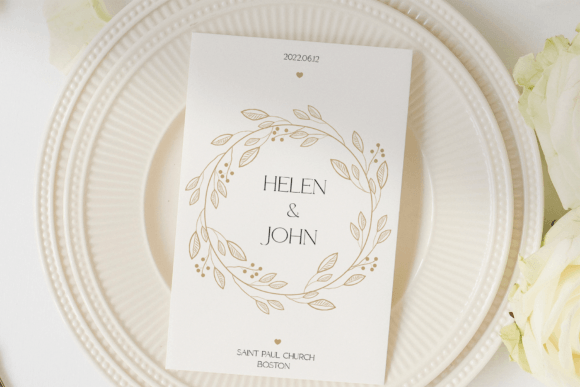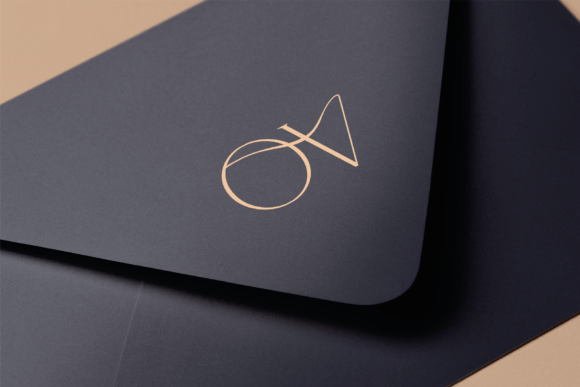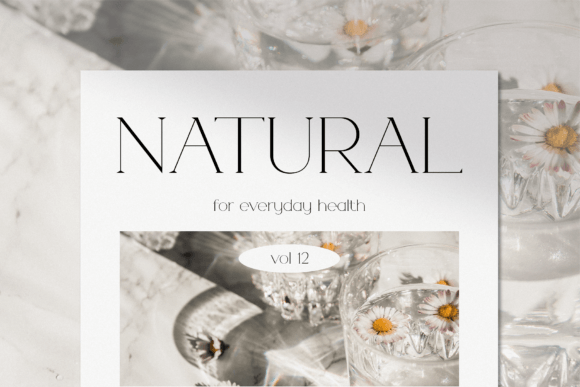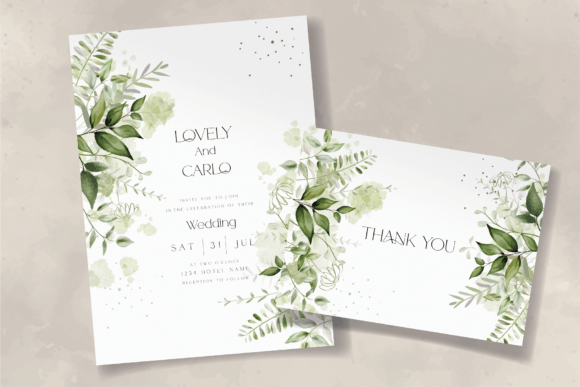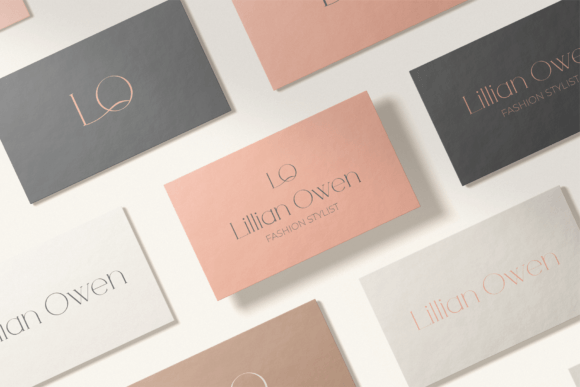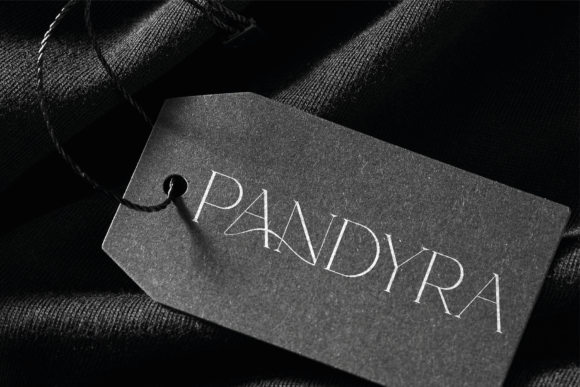
Introduction to Pandyra Font
Pandyra is an elegant and modern serif typeface.
Its minimalist nature grabs your attention and keeps you hooked Pandyra is ready to be used for luxury, elegant, and stylish projects like logos, magazines, weddings, advertising, web design, packaging, and more.
Key Features of Pandyra Font